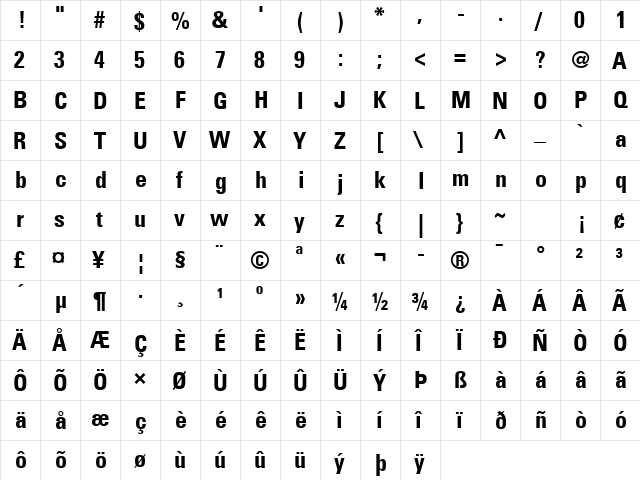
Univers 47 CondensedLight Bold Font Preview
Design Context for Univers 47 CondensedLight Typeface
Univers 47 CondensedLight takes a measured approach to typography — its balanced proportions and neutral character make it a reliable workhorse for both digital and print work. The heavy weight commands attention and anchors typographic hierarchies. Its narrow stance lets it pack a punch even in space-constrained designs.